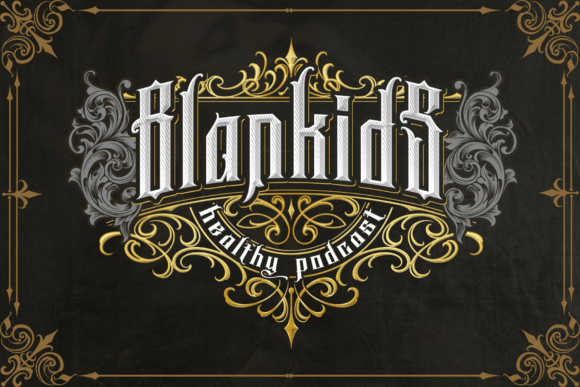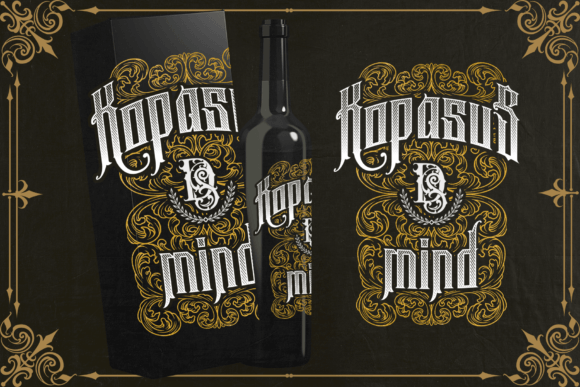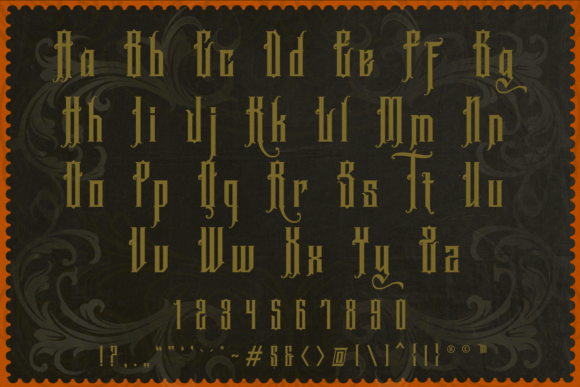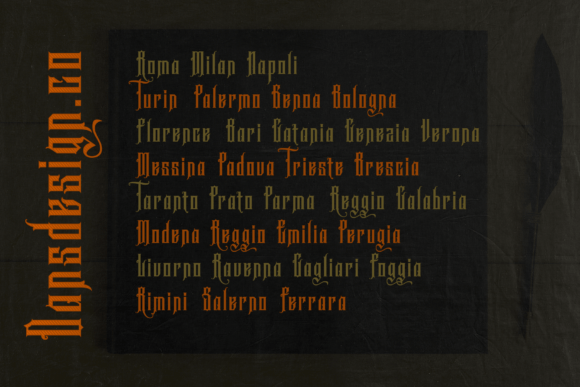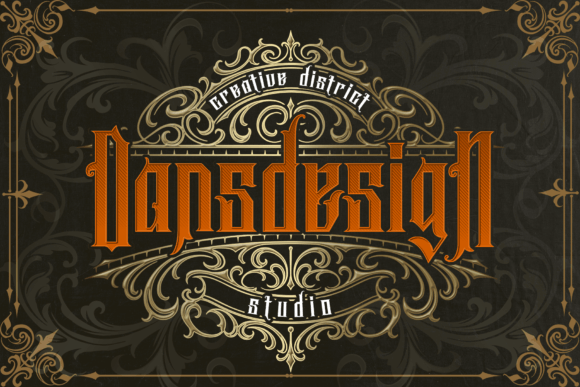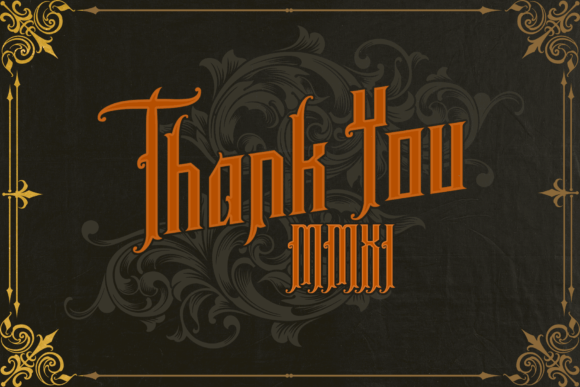
Gomsky Font: Elevate Your Designs with Elegance and Sophistication
In the world of typography, fonts play a crucial role in conveying the tone and personality of a design. For designers and crafters seeking a bold, distinct, and elegant blackletter font, Gomsky Font is an exceptional choice. This meticulously crafted font is highly detailed, making it a wonderful asset to any font library. Whether you’re working on a specific project or looking to enhance your creative arsenal, Gomsky Font is sure to impress.
What is Gomsky Font?
Gomsky Font is a bold and elegant blackletter font, characterized by its striking and sophisticated design. Blackletter fonts, also known as Gothic scripts, have a rich history dating back to the Middle Ages. They are known for their dramatic and ornate appearance, which adds a touch of luxury and refinement to any design. Gomsky Font takes this classic style and infuses it with modern flair, making it perfect for a wide range of applications.
Key Features of Gomsky Font
- Bold and Distinct: Gomsky Font boasts a bold and distinct design that commands attention. Its unique character set makes it stand out from other fonts, ensuring your designs leave a lasting impression.
- Elegant and Sophisticated: The font’s elegant and sophisticated appearance makes it ideal for designs that require a touch of luxury and refinement. From high-end branding to premium packaging, Gomsky Font is the perfect choice.
- Highly Detailed: Gomsky Font is meticulously crafted with intricate details that bring the font to life. Its high level of detail ensures that it looks stunning in both digital and print formats.
- Versatile: Despite its bold and distinctive design, Gomsky Font is surprisingly versatile. It can be used for a wide range of applications, from headings and titles to logos and branding.
Uses of Gomsky Font
Gomsky Font’s versatility makes it suitable for various design projects. Here are some of the ways you can use this exceptional font:
- Branding and Logo Design: Create a lasting impression with Gomsky Font’s bold and elegant design. Use it to craft unique logos, business cards, and letterheads that reflect your brand’s personality.
- Packaging Design: Add a touch of luxury to your packaging designs with Gomsky Font. Its sophisticated appearance makes it perfect for premium products, wine labels, and high-end packaging.
- Advertising and Marketing: Gomsky Font’s bold and attention-grabbing design makes it ideal for advertising and marketing materials. Use it to create stunning headlines, posters, and flyers that capture your audience’s attention.
- Digital Design: Gomsky Font is also suitable for digital designs, including website headers, social media graphics, and email marketing campaigns.
Why Choose Gomsky Font?
With so many fonts available, why choose Gomsky Font? Here are a few compelling reasons:
- Unique Design: Gomsky Font’s unique design sets it apart from other fonts. Its bold and elegant appearance ensures that your designs stand out from the crowd.
- High-Quality: Gomsky Font is crafted with precision and attention to detail, ensuring a high-quality font that looks stunning in any design.
- Versatility: Gomsky Font’s versatility makes it suitable for a wide range of applications, from branding and packaging to advertising and digital design.
In conclusion, Gomsky Font is an exceptional addition to any designer’s font library. Its bold, distinct, and elegant design makes it perfect for a wide range of applications. Whether you’re looking to create stunning branding, packaging, or advertising materials, Gomsky Font is sure to impress. With its high-quality design and versatility, Gomsky Font is an investment worth considering for any designer or crafter seeking to elevate their designs.